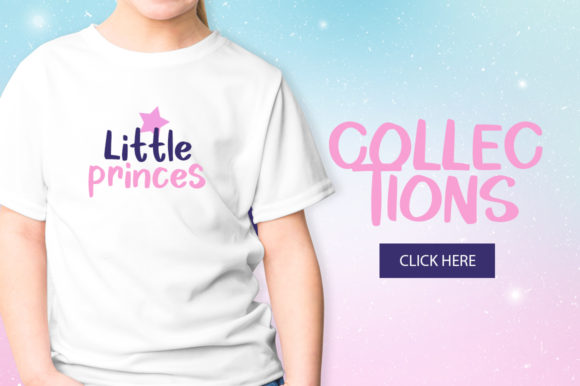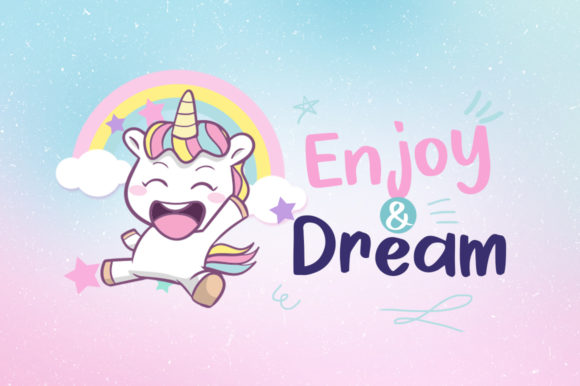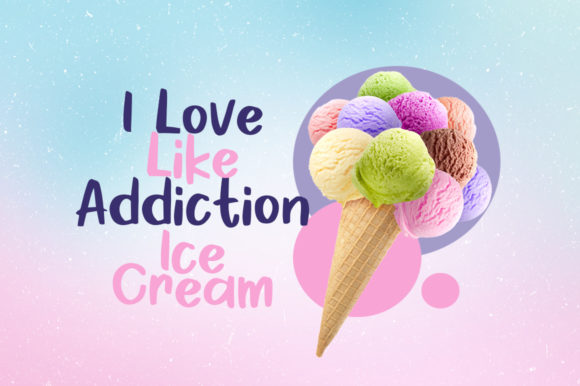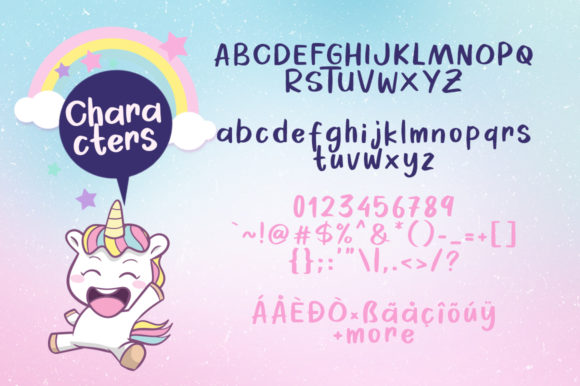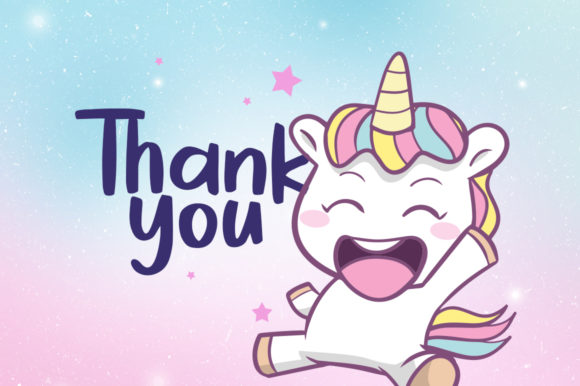
Introducing the Cheerful Unicorn Font: A Lovely and Fun Display Font
Are you tired of using the same old fonts for your designs? Look no further! The Cheerful Unicorn Font is here to add a touch of magic to your creations. This lovely and fun display font is perfect for designers and crafters who want to add a dash of whimsy to their work. Get inspired by its cheerful style and take your designs to the next level!
What Makes Cheerful Unicorn Font So Special?
The Cheerful Unicorn Font is a unique and eye-catching display font that is sure to grab attention. Its cheerful style is inspired by the mythical creatures of fantasy, with a playful and carefree vibe that’s perfect for designs that need a little extra sparkle. Whether you’re working on a project for a children’s party, a craft tutorial, or a social media post, this font is sure to bring a smile to your audience’s faces.
Key Features of the Cheerful Unicorn Font
- Lovely and Fun Design: The Cheerful Unicorn Font features a playful and whimsical design that’s perfect for adding a touch of magic to your creations.
- Display Font: This font is specifically designed as a display font, making it perfect for headlines, titles, and other attention-grabbing elements.
- Easy to Read: Despite its playful design, the Cheerful Unicorn Font is easy to read, making it perfect for use in a variety of contexts.
- Versatile: This font can be used for a wide range of projects, from children’s party invitations to craft tutorials and social media posts.
How to Use the Cheerful Unicorn Font
The Cheerful Unicorn Font is easy to use and can be incorporated into your designs in a variety of ways. Here are a few ideas to get you started:
- Pair it with Other Fonts: Combine the Cheerful Unicorn Font with other fonts to create a unique and eye-catching design.
- Use it for Headlines: The Cheerful Unicorn Font is perfect for use in headlines and titles, where its playful design can really shine.
- Add it to Your Craft Tutorials: If you’re a crafter, consider adding the Cheerful Unicorn Font to your tutorials to add an extra touch of whimsy.
Tips for Getting the Most Out of the Cheerful Unicorn Font
Here are a few tips for getting the most out of the Cheerful Unicorn Font:
- Experiment with Colors: The Cheerful Unicorn Font looks great in a variety of colors, so don’t be afraid to experiment and find the perfect hue for your design.
- Play with Size: This font can be used at a variety of sizes, from small and subtle to large and bold.
- Have Fun: The most important thing is to have fun with the Cheerful Unicorn Font! Don’t be afraid to get creative and try new things.
The Cheerful Unicorn Font is a lovely and fun display font that’s perfect for designers and crafters who want to add a touch of magic to their creations. With its playful design and versatile uses, this font is sure to become a favorite in your collection. So why wait? Get inspired by its cheerful style and start creating today!